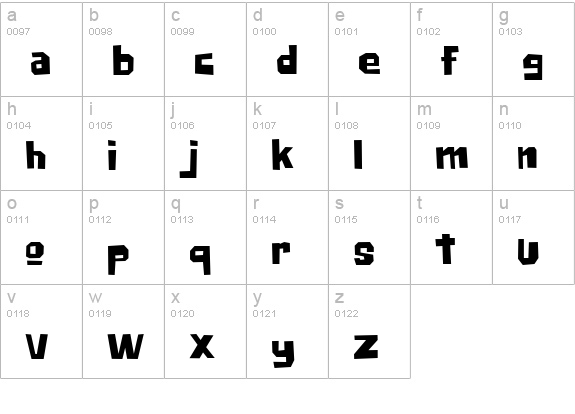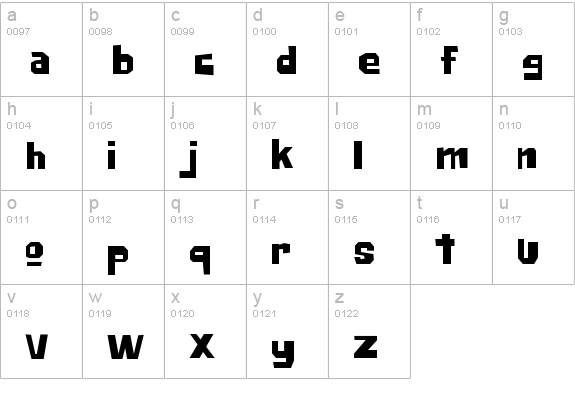
Big Chump BTN Font Details
Big Chump BTN is a bold and eye-catching font that exudes confidence and impact. With its thick, chunky lettering and unique style, this font is sure to make a statement in any design project. Whether you're looking to create a striking poster, attention-grabbing logo, or standout headline, Big Chump BTN is the perfect choice. And the best part? Big Chump BTN is available for free download at FontsMarket.com. This means you can easily add this impressive font to your collection without breaking the bank. Don't miss out on the opportunity to enhance your designs with the bold and powerful Big Chump BTN font today!